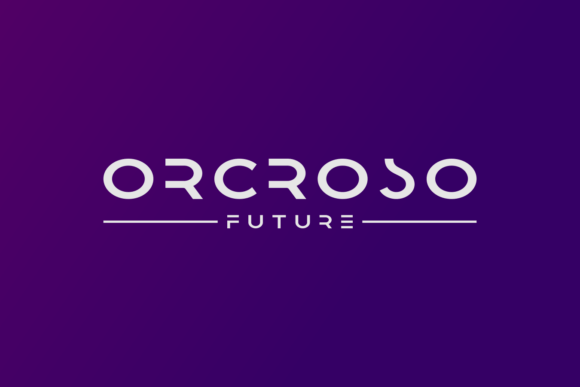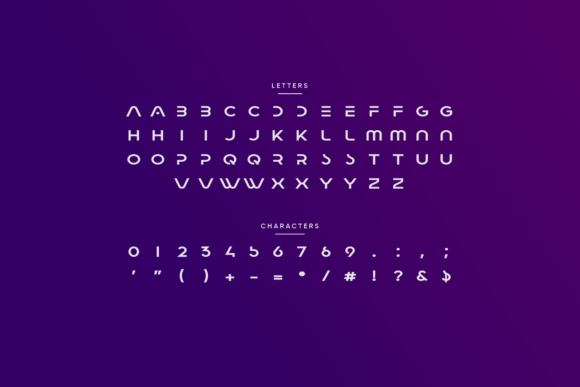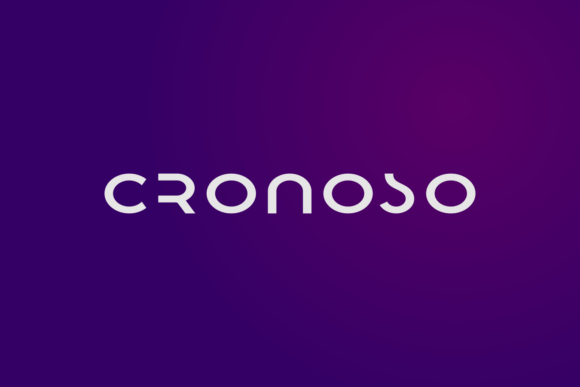
Introduction to Orcroso Font
Orcroso is a modern and authentic sans serif font.
This font is good for Logo Design, Poster, Movie Titles, Books Titles, and good for your secondary text font Orcroso will brings you to the next level of a stunning typeface that can showcase elegance but with a minimalist form.
Orcroso Font offers exceptional quality and versatility, making it a valuable addition to your design toolkit. Whether you’re creating for personal projects or commercial use, Orcroso Font delivers professional results.